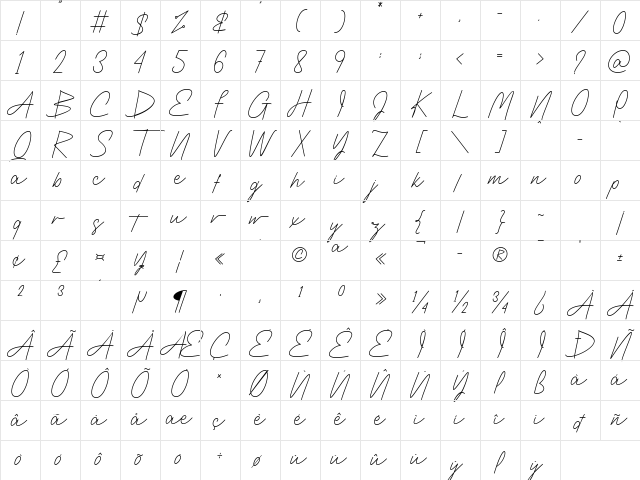
Captures Regular
Designer: Muhamad Fikry Nuralif
Design Context for Captures
Captures is a composed and adaptable typeface that performs quietly and consistently across a wide range of design contexts.